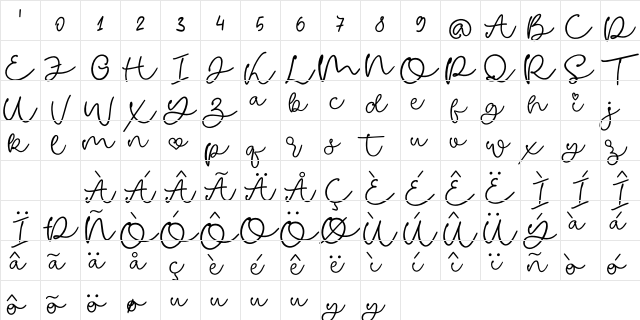
Some Love Demo Script
Design Context for Some Love Demo Typeface
Some Love Demo brings a calligraphic fluidity to the page — its connecting strokes and expressive curves give it an unmistakably human quality.
Font Pairing: Combine Some Love Demo with a simple geometric sans for maximum contrast — the tension between flowing curves and clean structure is a classic typographic pairing.
Pro Tip: Pair Some Love Demo with a clean sans-serif for supporting text. The contrast between fluid script and geometric structure creates an elegant typographic hierarchy.